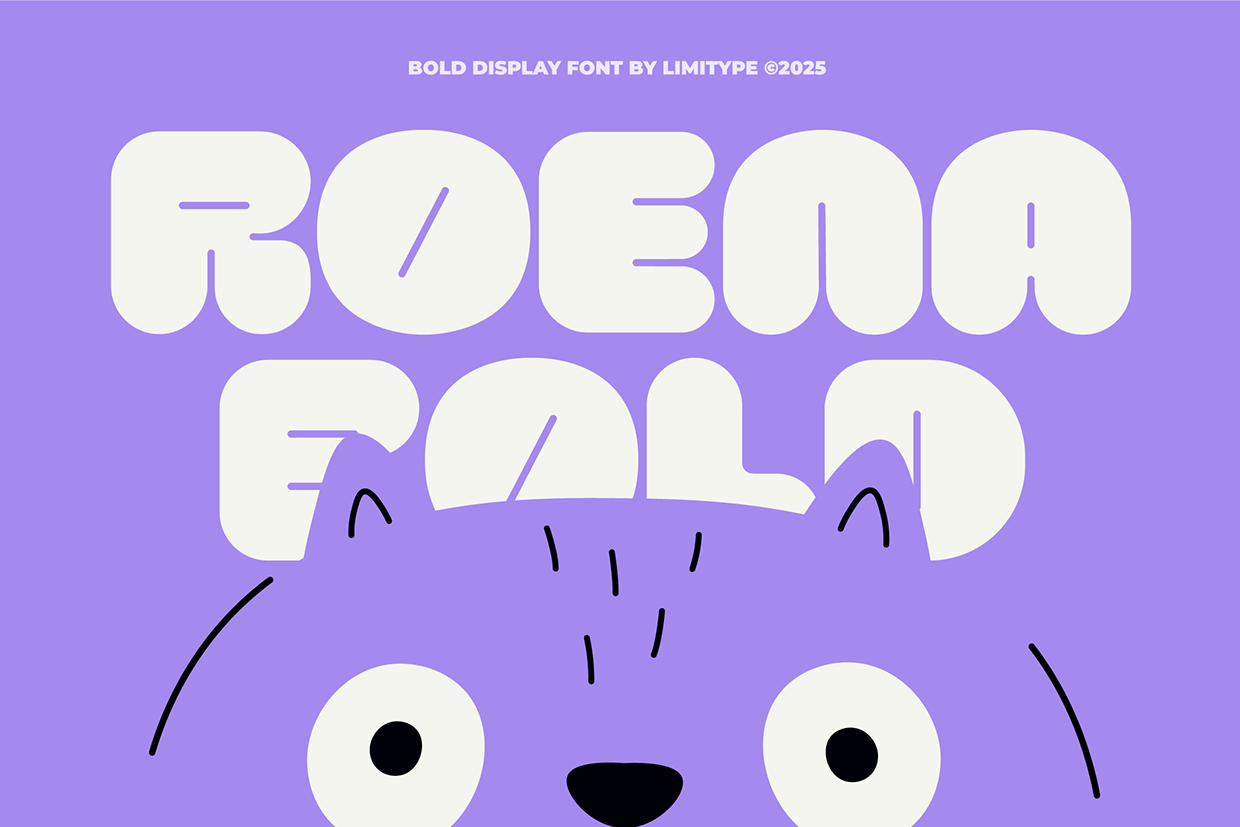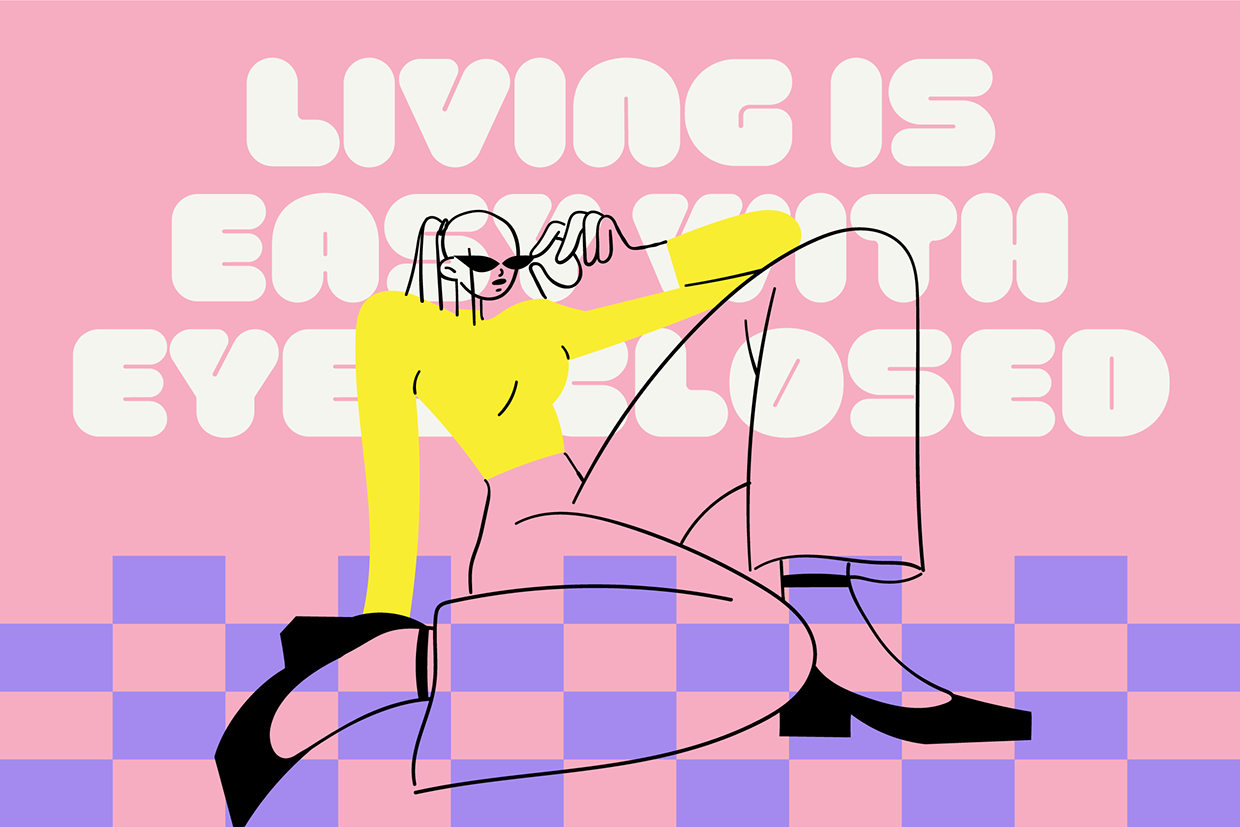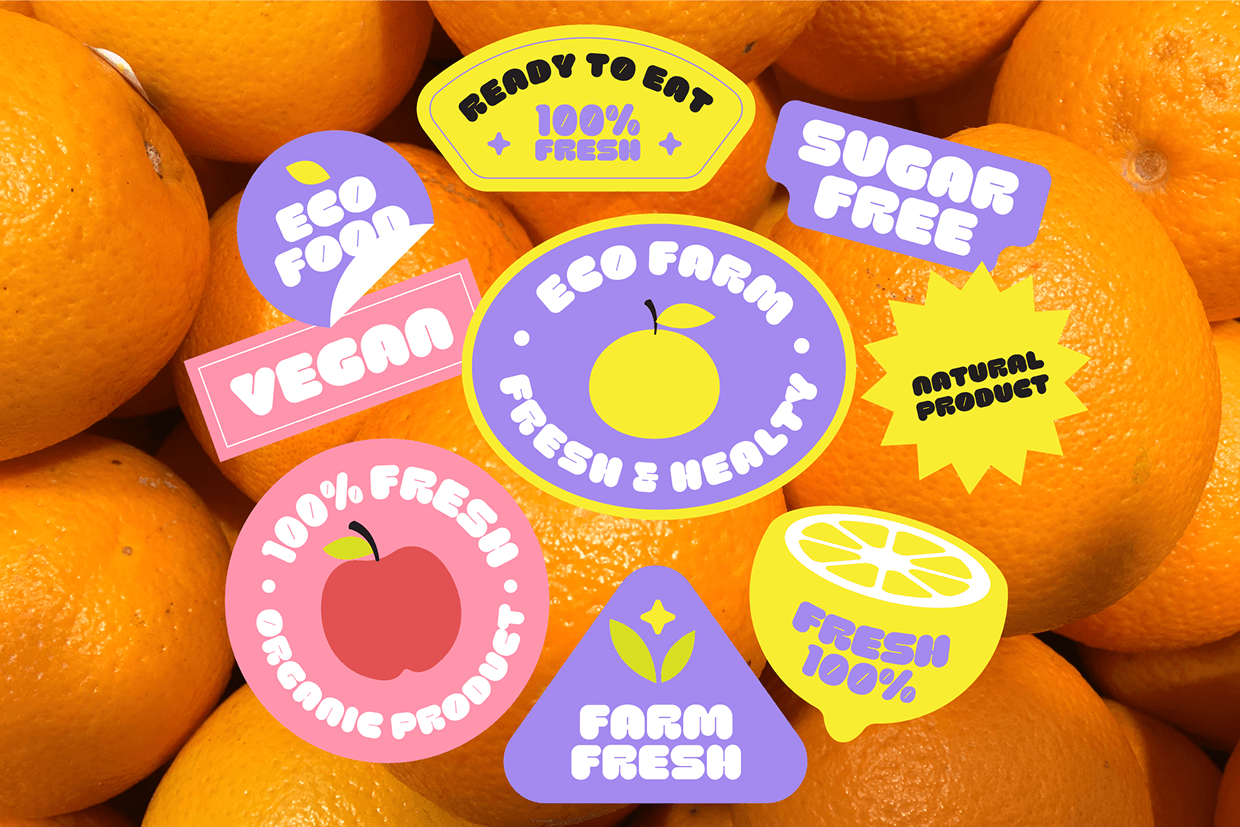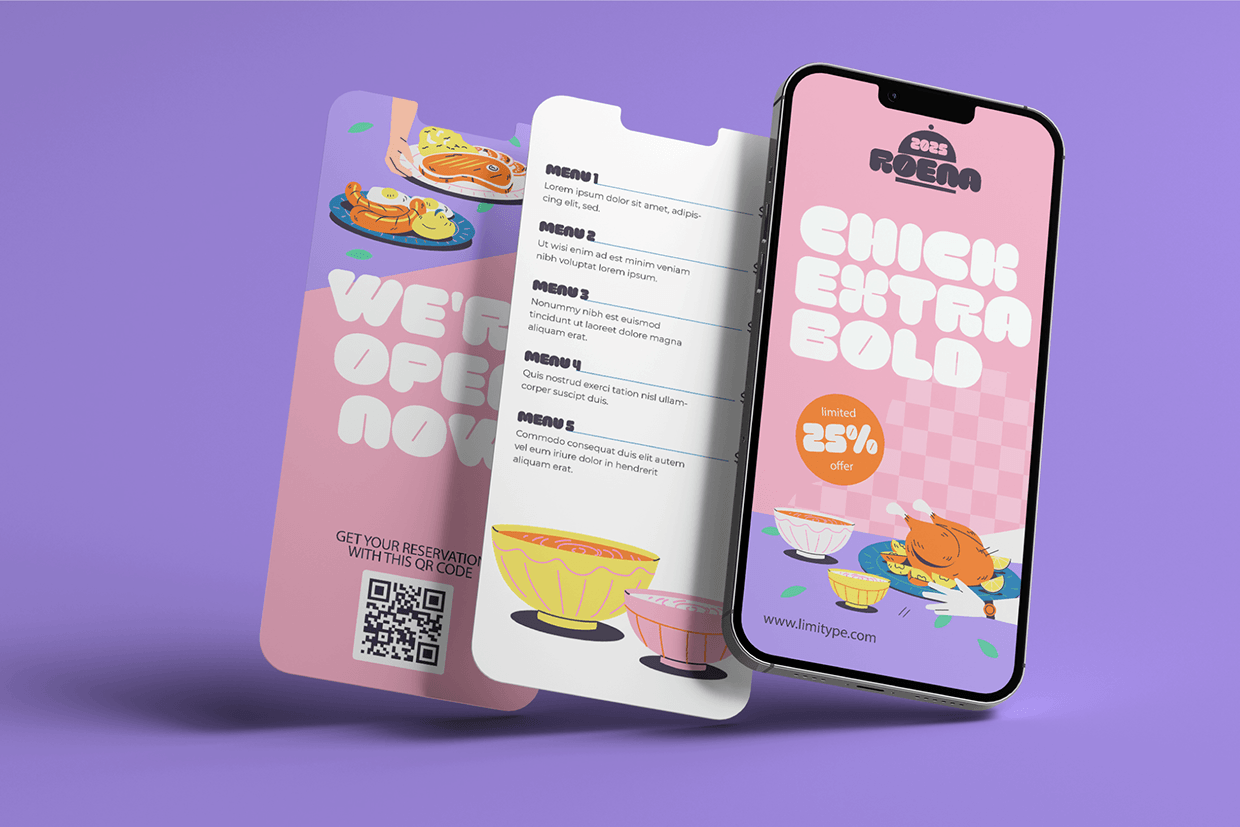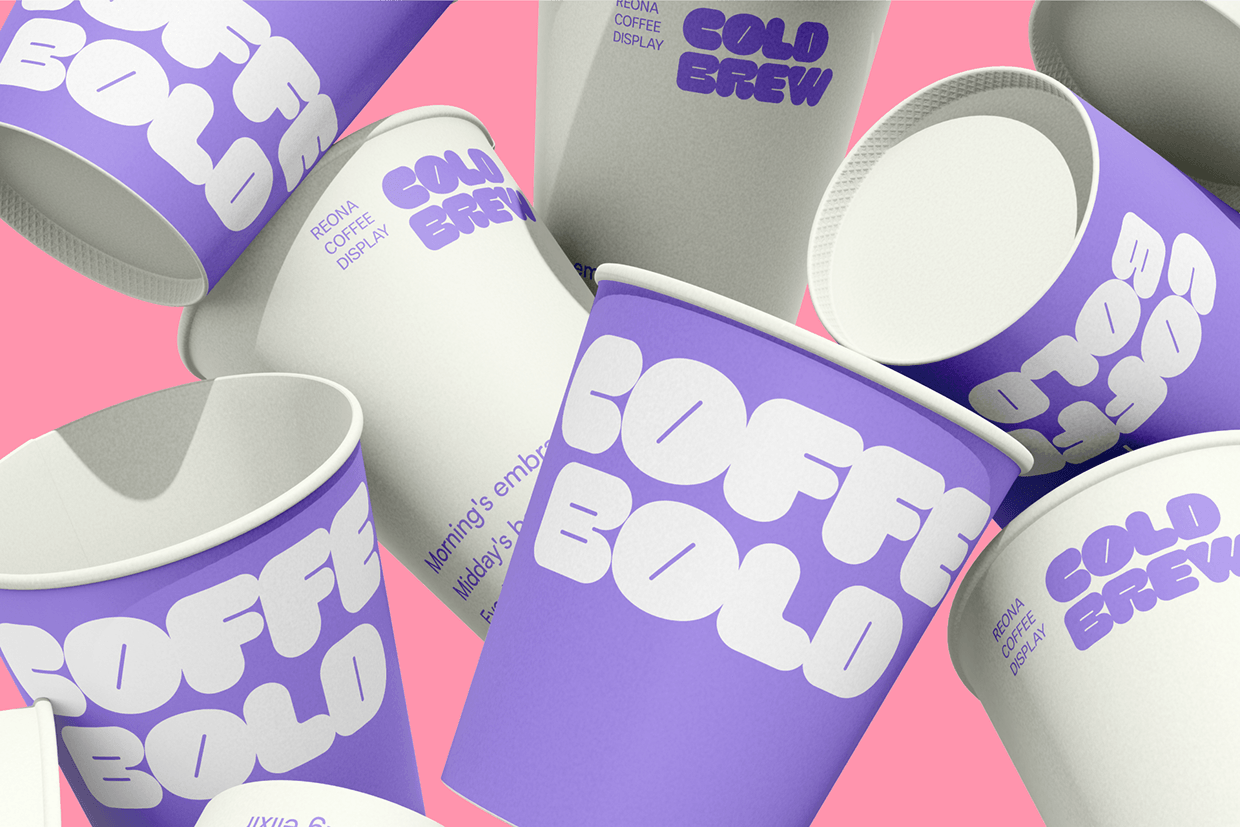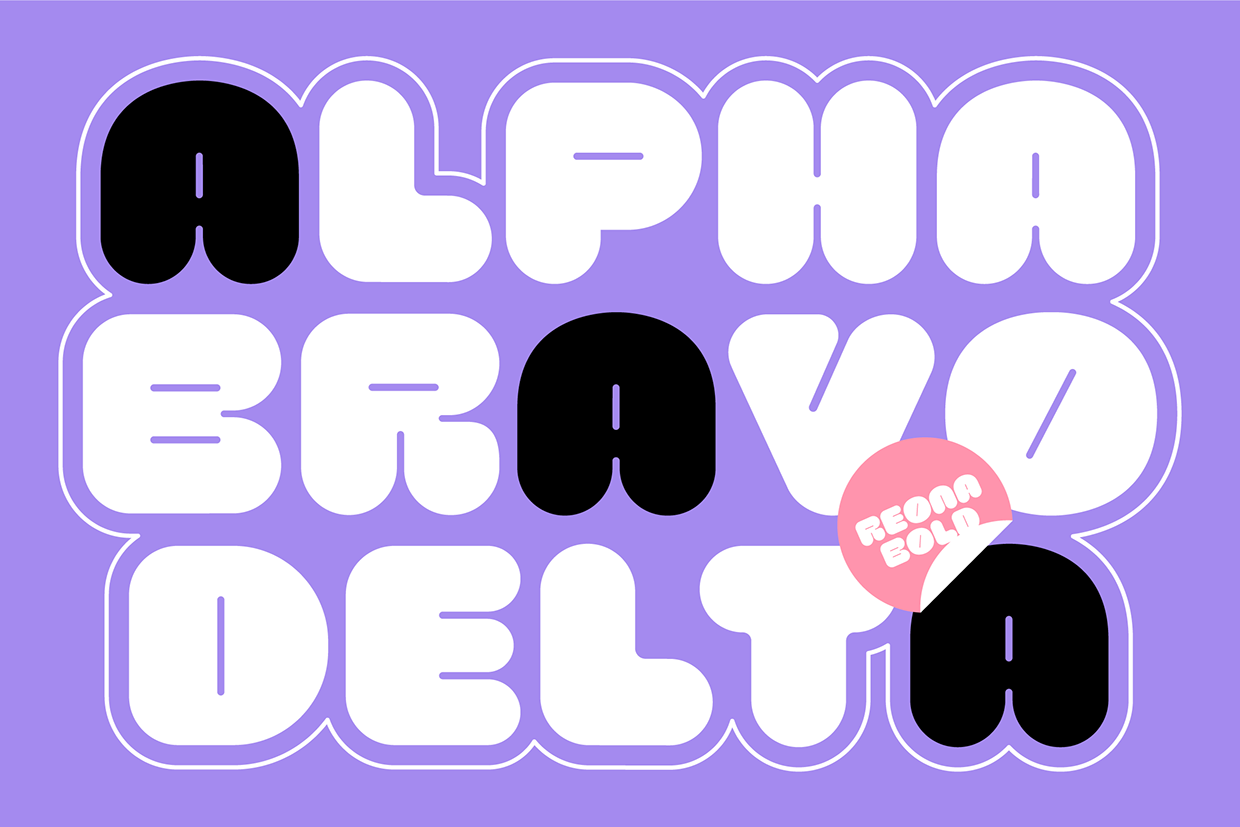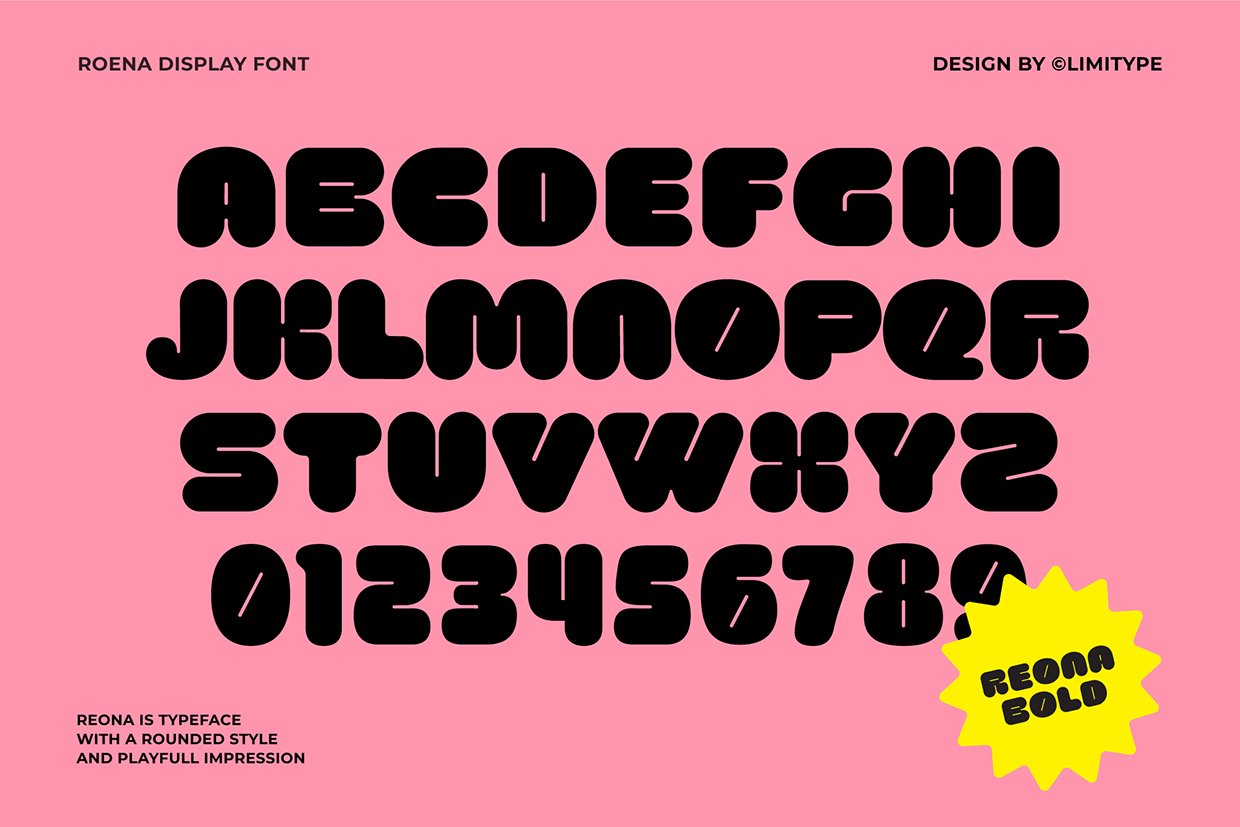
Roena - Bold Font
Roena is a font with a bold, cheerful, and expressive style designed to bring a fun vibe to every design. Its unique, rounded, and daring letterforms make it perfect for kids’ event posters, food & beverage packaging, creative branding, social media content, and even titles or headers that need to stand out and feel playful.